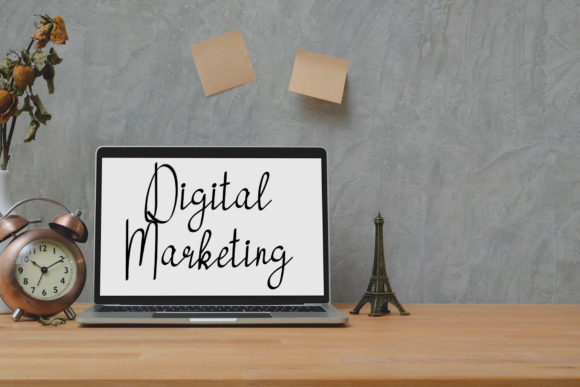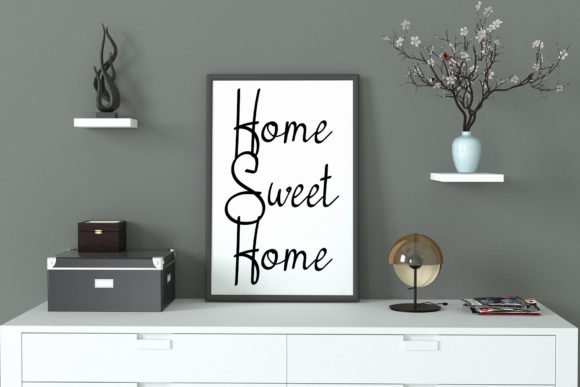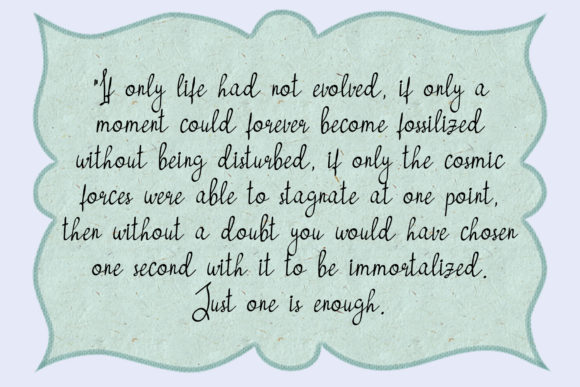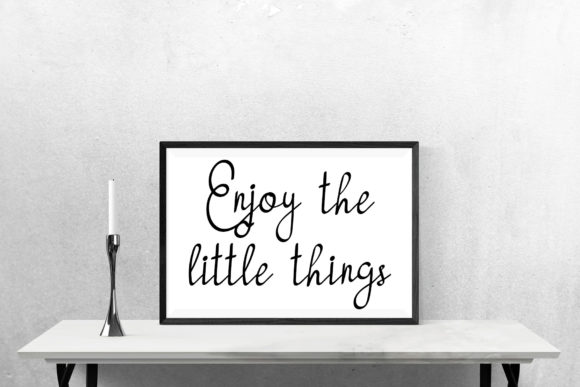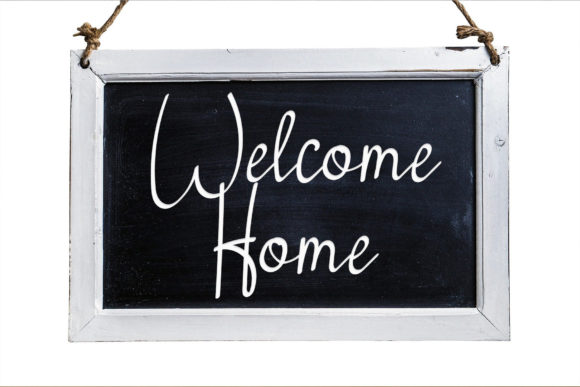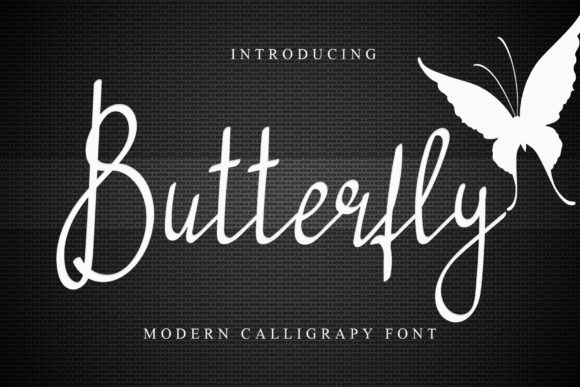
Introducing Butterfly Font: The Epitome of Elegance and Sophistication
In the world of typography, few fonts manage to convey the essence of elegance and sophistication as effortlessly as the Butterfly Font. This chic, refined script font has been turning heads with its stylish alternates and ligatures, making it the perfect match for any project that demands a touch of class and refinement.
The Butterfly Font: A Masterclass in Elegance
Butterfly Font is a beautiful, hand-crafted script font that exudes luxury and poise. Its delicate strokes and intricate details are a testament to the skill and craftsmanship of its creators, who have poured their hearts and souls into bringing this stunning font to life. Whether you’re working on a branding project, a wedding invitation, or a high-end product catalog, Butterfly Font is sure to make a lasting impression.
What Sets Butterfly Font Apart?
So, what makes Butterfly Font stand out from the crowd? Here are just a few features that set it apart:
• Stylish Alternates: Butterfly Font comes with a range of stylish alternates that allow you to add a touch of personality to your text. From subtle variations to more dramatic flourishes, these alternates give you the flexibility to create unique and eye-catching designs.
• Ligatures: The font also features a range of ligatures, which allow you to connect letters and create a sense of flow and continuity. This is particularly useful for creating elegant, cursive-style text that flows beautifully across the page.
• Refined Typography: Butterfly Font is built on a foundation of refined typography, with clean lines, precise kerning, and attention to detail. This makes it perfect for projects where clarity and legibility are essential.
Butterfly Font is a versatile font that is perfect for designers and crafters alike. Whether you’re working on a client project or creating something for your own brand, this font is sure to impress. Here are just a few ways you can use Butterfly Font:
• Branding: Use Butterfly Font to create elegant logos, business cards, and letterheads that reflect your brand’s values and personality.
• Wedding and Event Design: Create stunning wedding invitations, menus, and programs that set the tone for a sophisticated and memorable event.
• Packaging and Product Design: Use Butterfly Font to add a touch of luxury to your product packaging, labels, and marketing materials.
Tips for Using Butterfly Font
To get the most out of Butterfly Font, here are a few tips to keep in mind:
• Use it sparingly: While Butterfly Font is beautiful, it’s also quite elegant and refined. Use it sparingly to create impact and avoid overwhelming your design.
• Experiment with alternates: Don’t be afraid to experiment with the font’s stylish alternates and ligatures to add personality and interest to your text.
• Pair it with contrasting fonts: Butterfly Font pairs beautifully with contrasting fonts, such as bold sans-serifs or elegant serifs. Experiment with different pairings to find the one that works best for your project.
In conclusion, Butterfly Font is a truly exceptional script font that embodies the very essence of elegance and sophistication. With its stylish alternates, ligatures, and refined typography, it’s the perfect match for any project that demands a touch of class and refinement. Whether you’re a designer, crafter, or simply someone who appreciates beautiful typography, Butterfly Font is sure to inspire and delight.